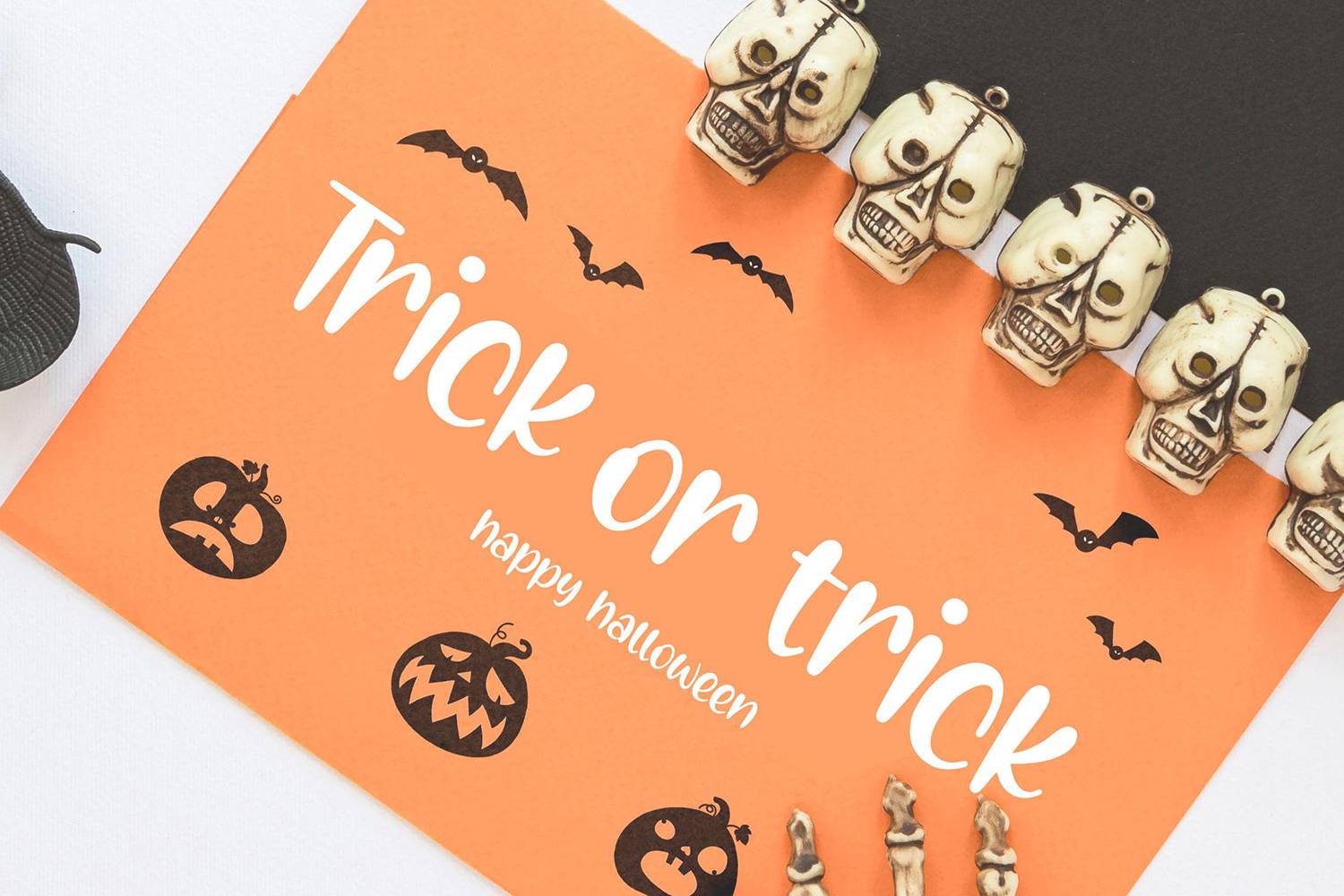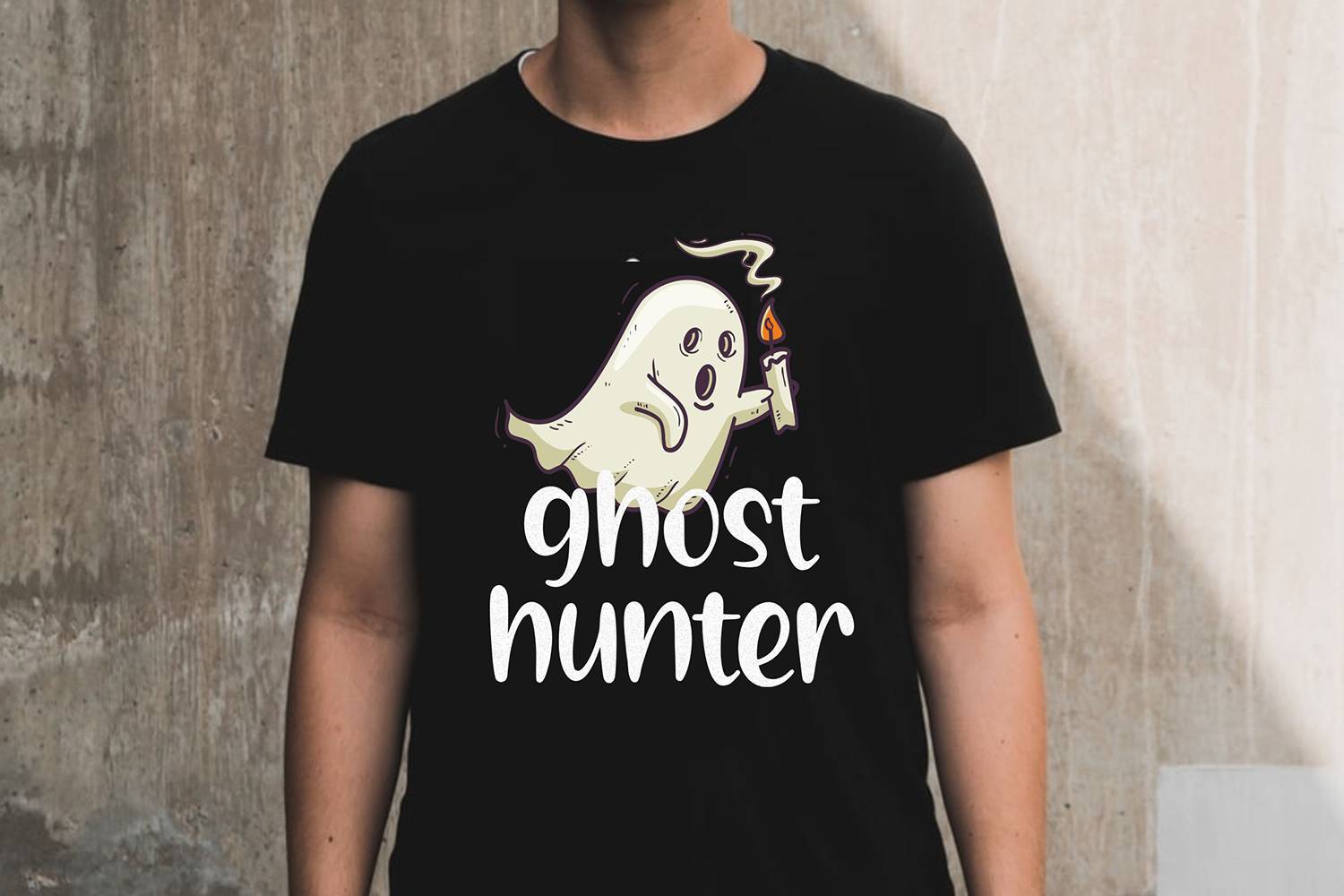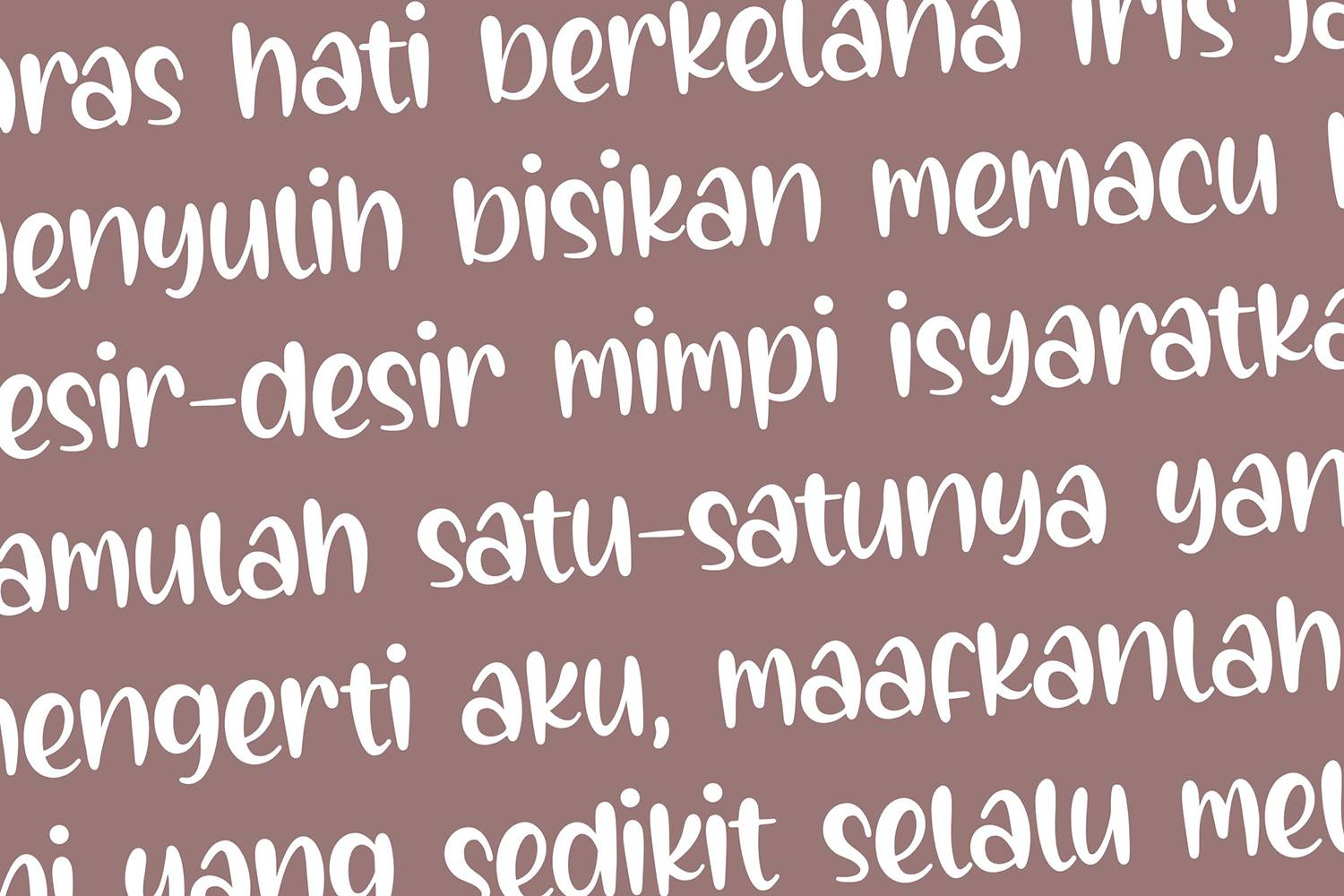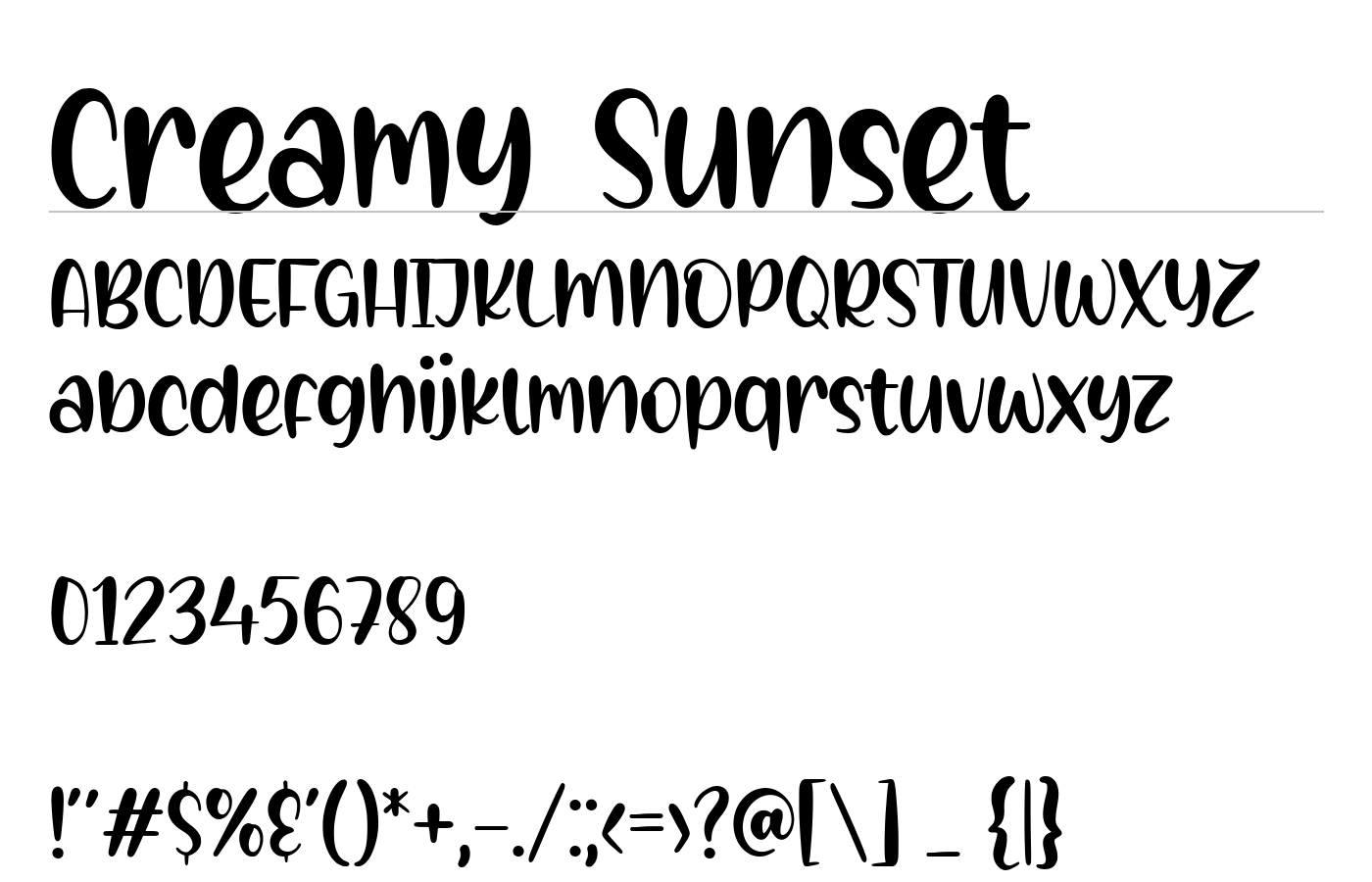
Creamy Sunset is a playful and friendly handwritten font with a casual, smooth flow and rounded forms that give it a warm, approachable feel. Its moderate weight and slightly tall x-height make it easy to read while maintaining a lively, personal touch, perfect for creative projects, informal branding, and fun headlines. This font works well for packaging, greeting cards, and social media graphics where a cheerful and inviting style is needed.
Creamy Sunset Font
About Creamy Sunset Font